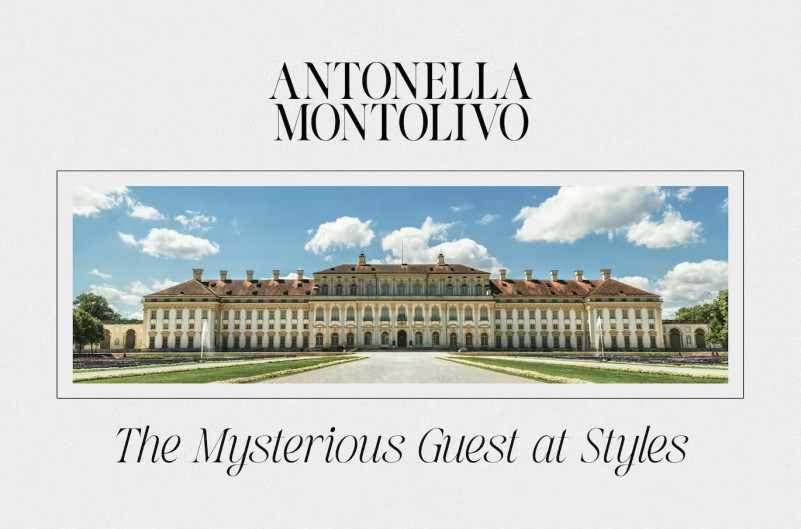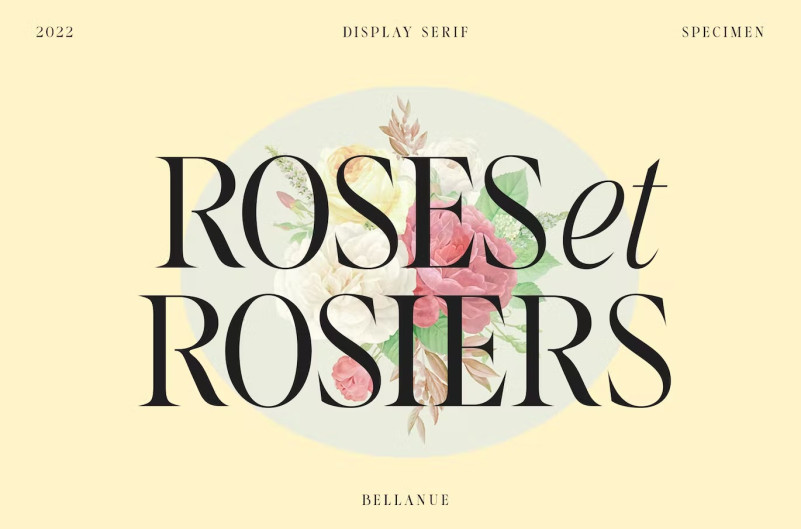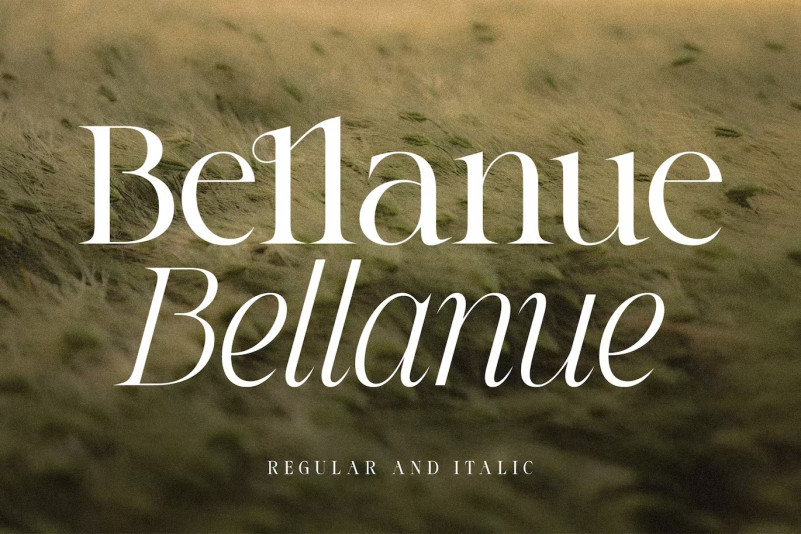
Bellanue Font
Introducing Bellanue Serif Font , a charming retro 80s font with great versatility
Inspired by magazine advertisements from the 1970s and 1980s, this family lends itself to bringing a retro touch back into the 21st century. Very Versatile: Browse through all the previews to discover the great variety that Bellanue can bring, the possibilities are truly endless 🙂